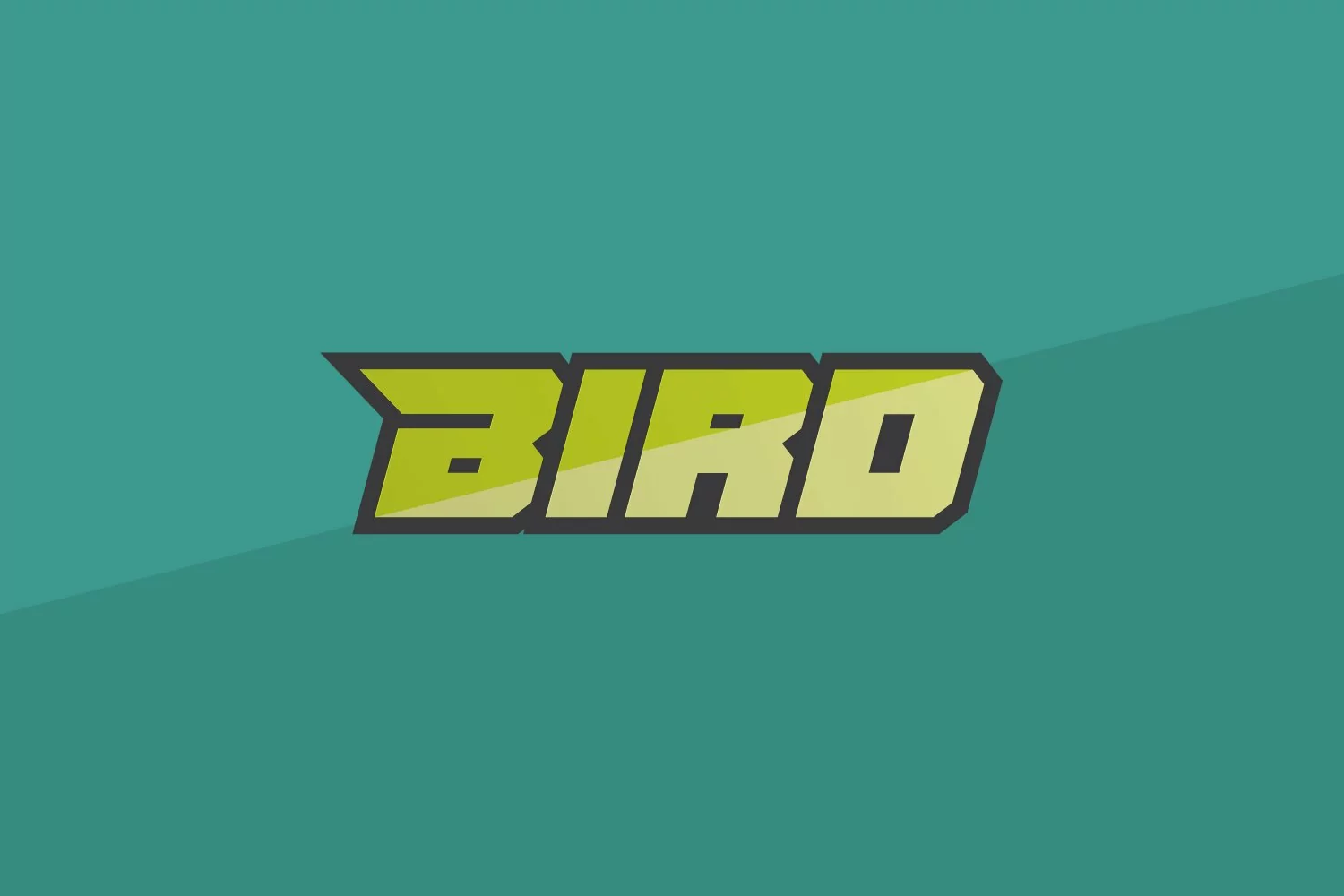
Boge - Bold italic font with sharp angles for dynamic effects.
Use ligature characters to give you unlimited designs, this font is great for your work such as posters, logos, branding, covers, banners, t-shirts and headers, or even large-scale artwork